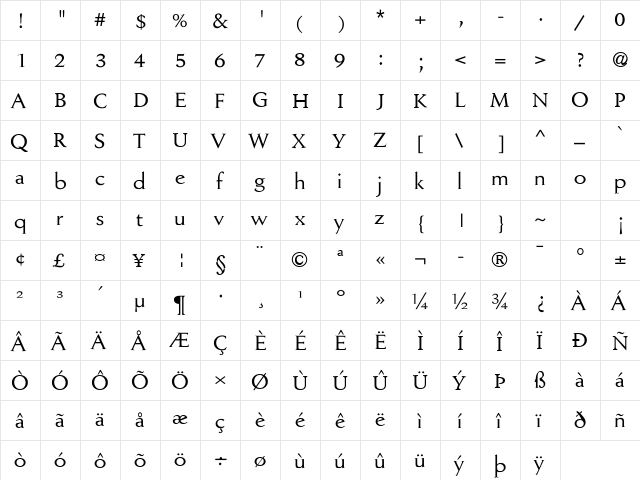
Steinbeck Reg
Design Context for Steinbeck Typeface
Steinbeck offers clean, dependable letterforms without strong stylistic allegiance, making it a practical choice for designers who need flexibility.